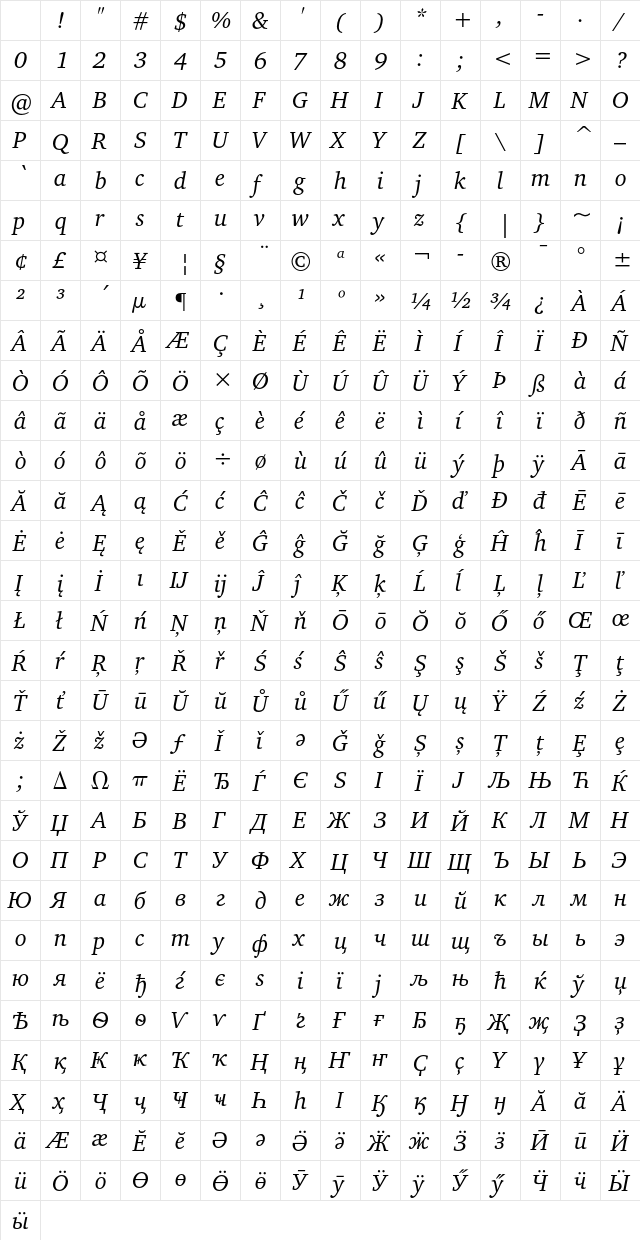
CharterITC Italic
Foundry: ParaType Inc.
Designer: Matthew Carter, Vladimir Yefimov
Design Context for CharterITC
CharterITC is a composed and adaptable typeface that performs quietly and consistently across a wide range of design contexts. The slanted form adds forward momentum and visual energy.